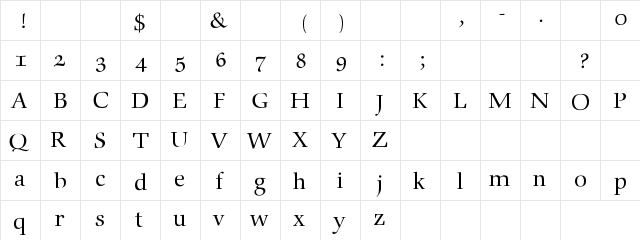
BetaCrownRomanBFA Regular Font Preview
BetaCrownRomanBFA Regular
Design Context for BetaCrownRomanBFA Typeface
BetaCrownRomanBFA takes a measured approach to typography — its balanced proportions and neutral character make it a reliable workhorse for both digital and print work.